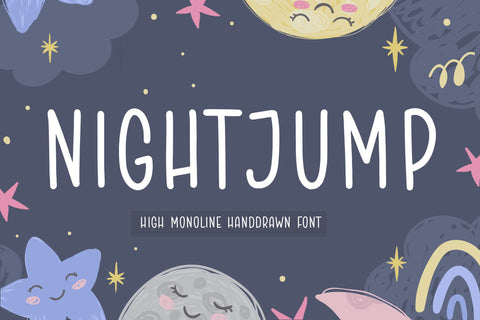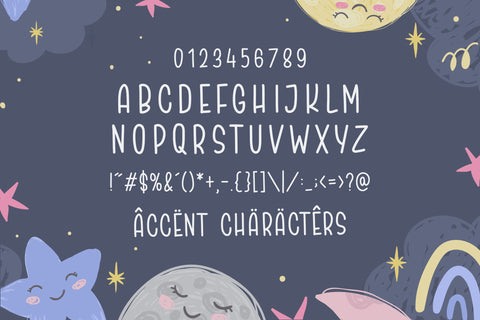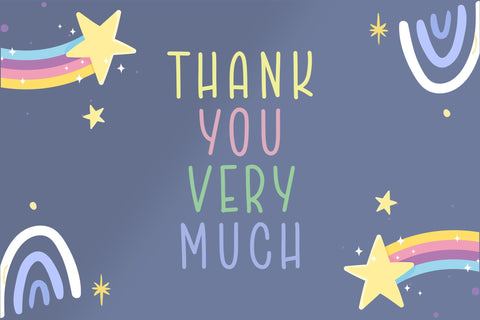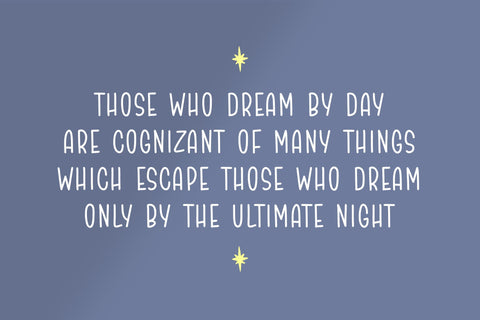
NIGHTJUMP High Monoline Handdrawn Font
Proudly Present, NIGHTJUMP Font.
NIGHTJUMP is a High Monoline Handdrawn Font.
NIGHTJUMP is perfect for product packaging, branding project, megazine, social media, wedding, or just used to express words above the background.